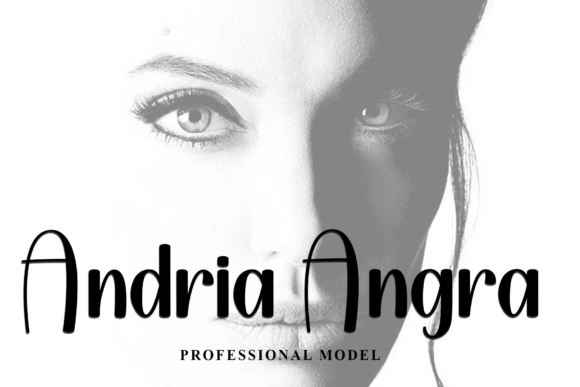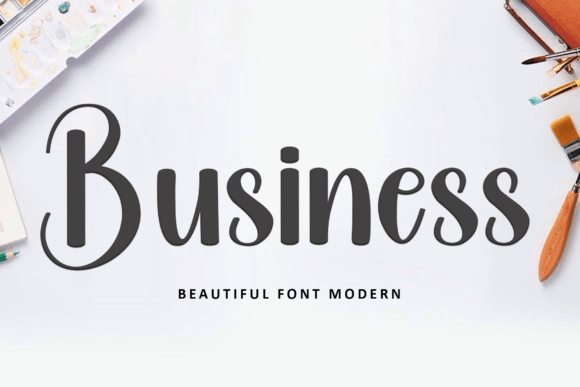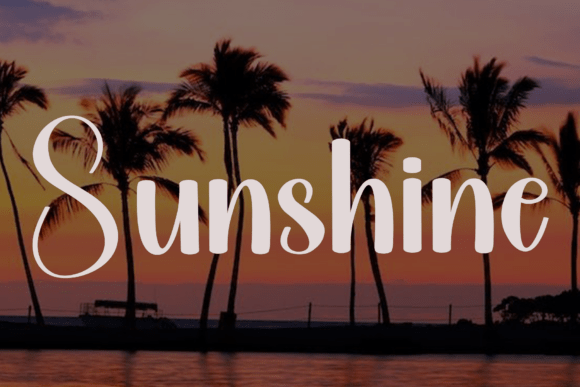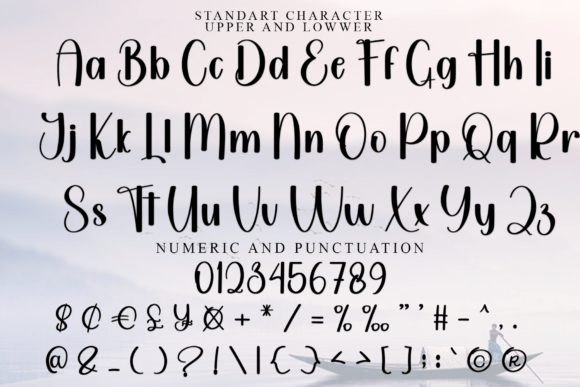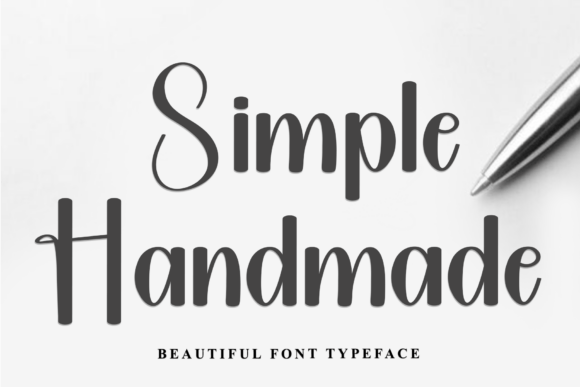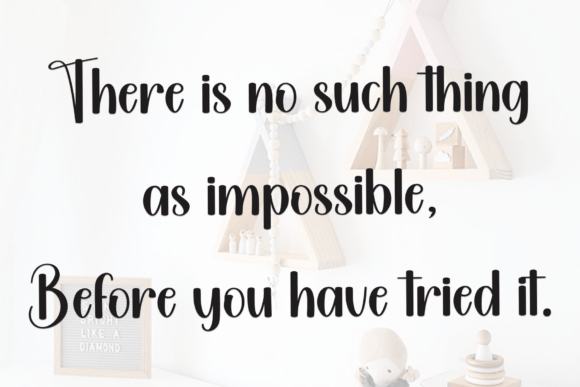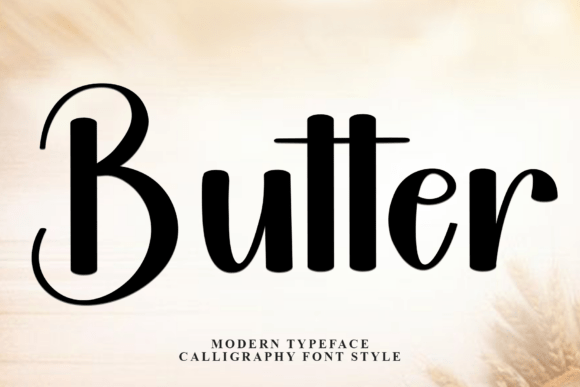
Introducing Butter Font: The Soft and Unique Typeface for Creative Projects
In the world of typography, fonts play a crucial role in making designs stand out. One such font that has gained attention for its soft, unique touch is the Butter Font. Designed to be both beautiful and eye-catching, this font has distinctive strokes that give it a special character, making it meaningful and versatile for future use.
What Makes Butter Font Special?
The Butter Font is not just another typeface; it’s a creative tool that can elevate your design projects, crafts, and other creative works. Its unique characteristics make it perfect for designers and crafters looking for a font that can add a touch of elegance and sophistication to their work. With various characters, this font is compatible with a wide range of applications, including Windows and open-source platforms.
Key Features of Butter Font
• Soft and Unique Touch: The Butter Font is designed with a soft, unique touch that sets it apart from other fonts. Its gentle curves and lines make it perfect for designs that require a subtle yet impactful typography.
• Distinctive Strokes: The font’s distinctive strokes give it a special character, making it meaningful and versatile for future use. Whether you’re working on a logo, branding, or advertising design, the Butter Font can add a touch of personality to your work.
• Variety of Characters: The Butter Font comes with a range of characters, making it perfect for design projects that require a high level of customization. From uppercase and lowercase letters to numbers and punctuation marks, this font has everything you need to create stunning designs.
Use Cases for Butter Font
The Butter Font is ideal for a wide range of design projects, including:
• Logo Design: The font’s unique character and soft touch make it perfect for logo design. Whether you’re creating a logo for a brand or a business, the Butter Font can help you create a memorable and impactful design.
• Branding: The Butter Font can be used in branding materials, such as brochures, flyers, and business cards. Its elegant and sophisticated design makes it perfect for creating a consistent brand image.
• Advertising: The font’s distinctive strokes and soft touch make it perfect for advertising designs, such as billboards, posters, and social media ads.
• Crafts: The Butter Font can also be used in crafts, such as scrapbooking, card making, and other paper crafts. Its unique character and soft touch make it perfect for adding a personal touch to your crafts.
Why Choose Butter Font?
There are many reasons why you should choose the Butter Font for your design projects. Here are a few:
• Unique Design: The Butter Font has a unique design that sets it apart from other fonts. Its soft touch and distinctive strokes make it perfect for designs that require a touch of elegance and sophistication.
• Versatility: The font is versatile and can be used in a wide range of design projects, from logo design to branding and advertising.
In conclusion, the Butter Font is a beautiful and eye-catching font designed with a soft, unique touch. Its distinctive strokes give it a special character, making it meaningful and versatile for future use. With various characters and compatibility with various applications, this natural font style is ideal for a wide range of products. Whether you’re a designer or a crafter, the Butter Font can enhance your designs, making them appealing to many audiences across different artistic and creative fields.